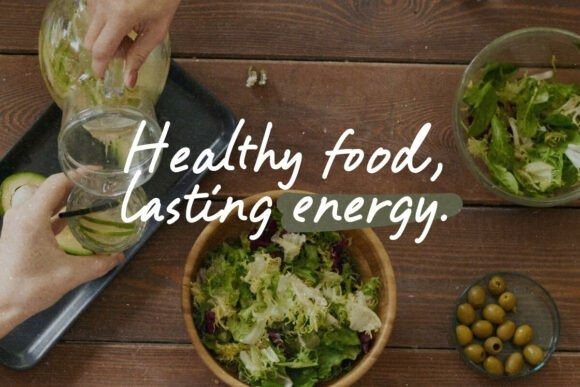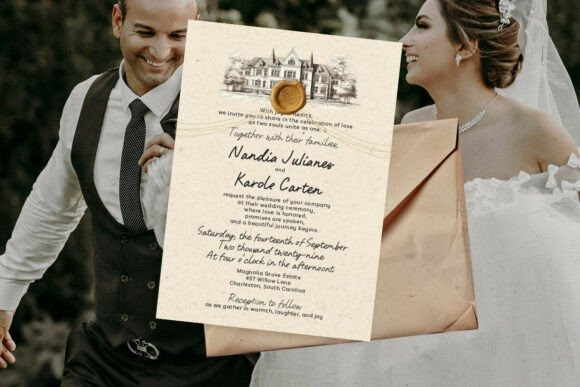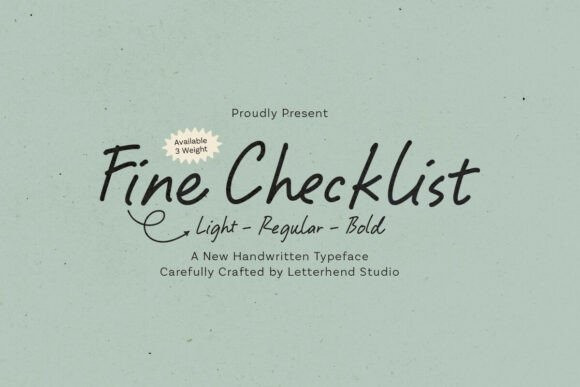
Fine Checklist Handwriting Font
Fine Checklist Handwriting Font is a clean handwritten typeface with a natural, everyday writing feel.The strokes are smooth, slightly textured, and easy to read, giving it a calm and friendly vibe. With light, regular, and bold weights, this font is flexible for notes, planners, packaging, labels, posters, and casual branding. It feels simple, honest, and relaxed—perfect for designs that want a neat handwritten look without feeling messy.
This Fine Checklist typeface offers a spontaneous yet sophisticated appearance, making it ideal for fine dining menus, luxury clothing brands, or high-end artisan products. With its multiple weights (Light, Regular, Bold), the Fine Checklist font provides incredible versatility for creating visual hierarchy in wedding photography, beauty branding, or editorial layouts that require a “human” yet polished touch.